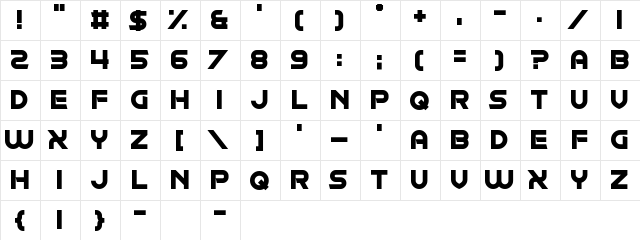
Exposure Salary Regular
Design Context for Exposure Salary Typeface
Exposure Salary offers clean, dependable letterforms without strong stylistic allegiance, making it a practical choice for designers who need flexibility.
Pro Tip: Use Exposure Salary in both headline and body roles to test its range before committing to a single application.